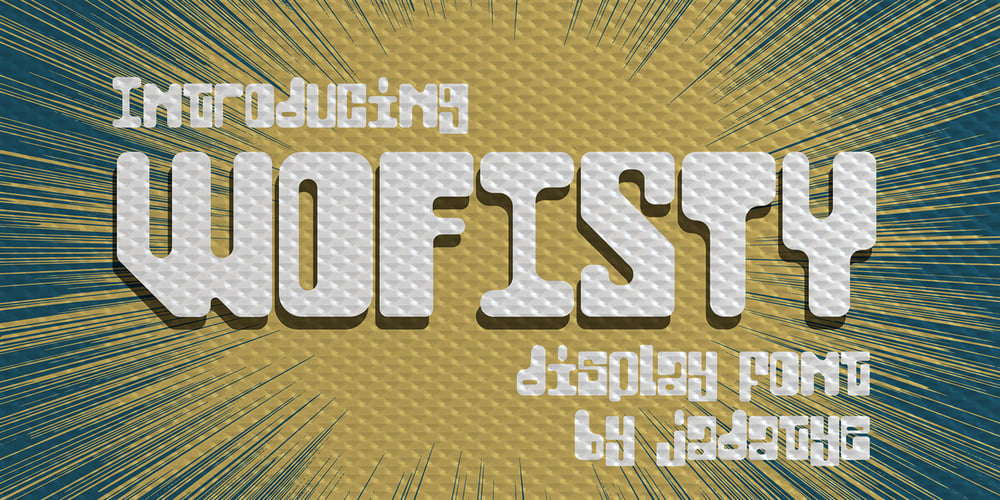
Wofisty Font Family was designed by Jada Akbal and published by Jadatype. Wofisty contains 1 styles and family package options. Wofisty is a display font that comes with Retro-Fun Style. suitable for tshirt, branding, social media, and so on. contains standard English letters, numbers, punctuation, and several accents that support multilingualism. Can be installed on applications such as adobe family, affinity, or Ms. Office.